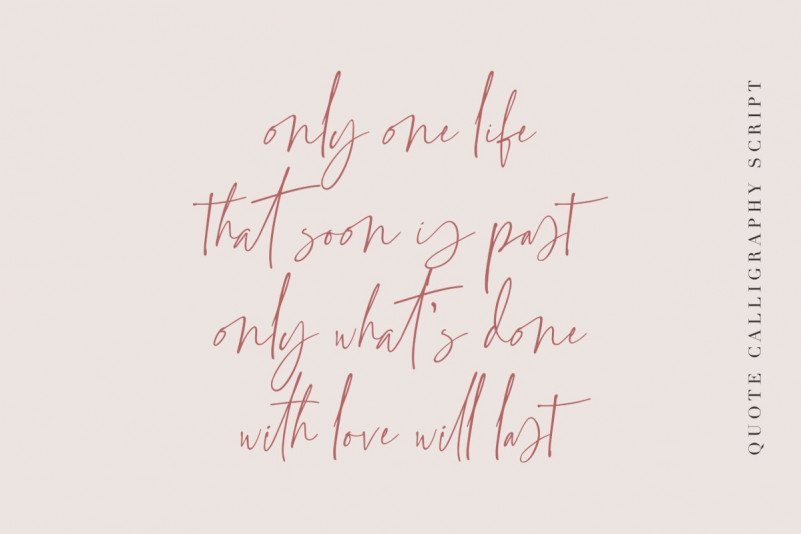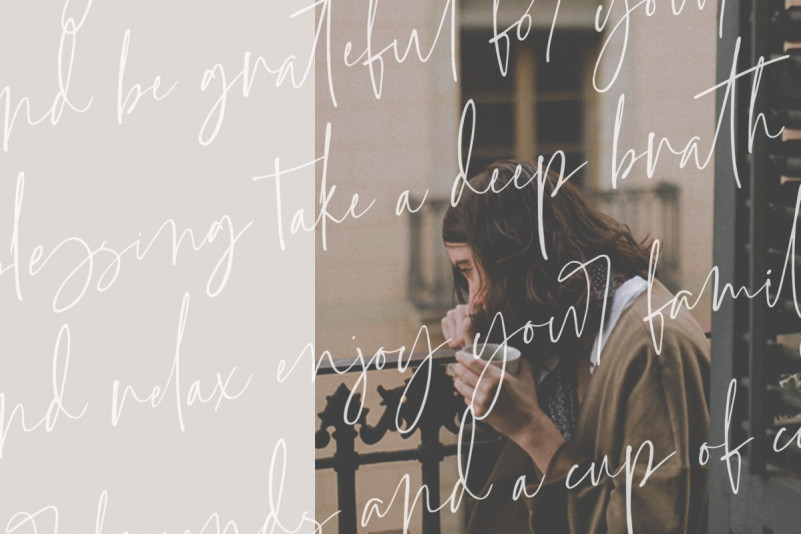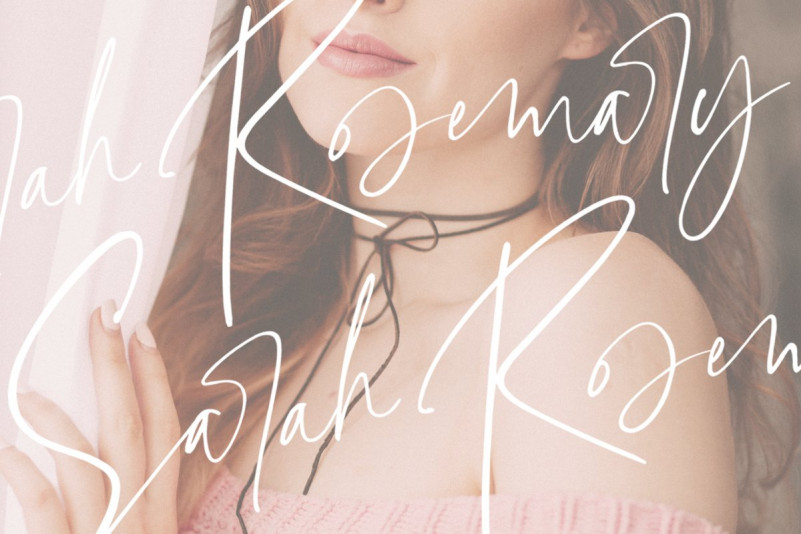
Grandiose Signature Font
Hello world..!! Say hello to Grandiose Signature Font! A font that looks absolutely handwritten and created by hand. This font is specially created for those of you who need a touch of elegance to design your projects next with perfect results and amazing. This font combines stylish letter shapes with contemporary twist. It’s the perfect fit for all luxury projects, such as elegant logos, printed quotes, lovely wedding invitation cards, social media headers, product packaging and a lot more!
It includes full set of elegant uppercase and lowercase letters, multilingual symbols, numerals, punctuation. The font has smooth wet ink texture, so would be perfect for all types of printing techniques+you can do embroidery, laser cut, gold foil etc.